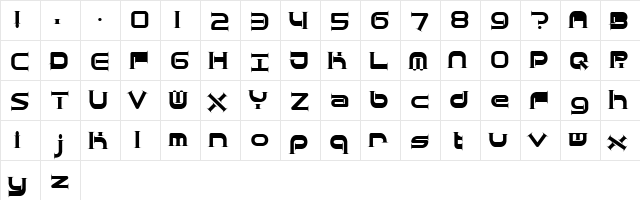
Quantum Taper (BRK) Regular
Design Context for Quantum Taper (BRK) Typeface
Quantum Taper (BRK) is a composed and adaptable typeface that performs quietly and consistently across a wide range of design contexts.